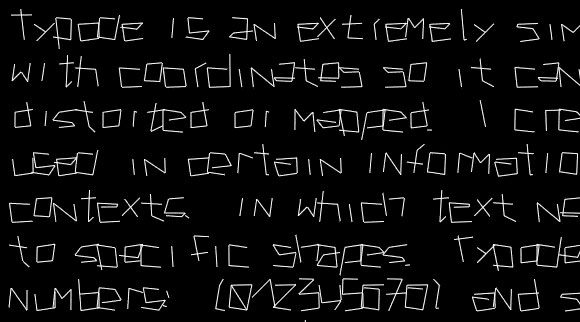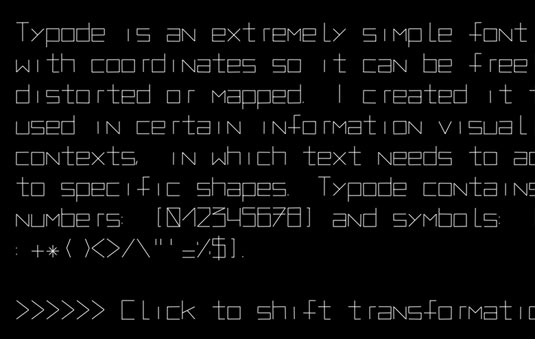
Typode: a new type of font
You'll either love or hate this experimental new font by typographer Santiago Oritz, which can be manipulated in a range of unusual ways.
Created by typographer Santiago Ortiz, Typode isn't like any other font you've seen before. He's decided to make his typeface a little less rigid than the usual offerings...
Twisty type
Typode's characters are defined by coordinate, which means you can skew, stretch and twist the font to your heart's content.
You can also do a bunch of hard-to-read tricks, which may or may not hinder its functionality.
Manipulate it
Creator Ortiz explains that Typode is a "simple font described with coordinates so it can be freely reshaped, distorted, or mapped. [I] created it to be used in certain information visualization contexts, in which text needs to adapt to specific shapes."
The type design itself is based on basic straight lines, evoking a very rigid and geometric feel, but this allows for the points of each glyph to be manipulated.